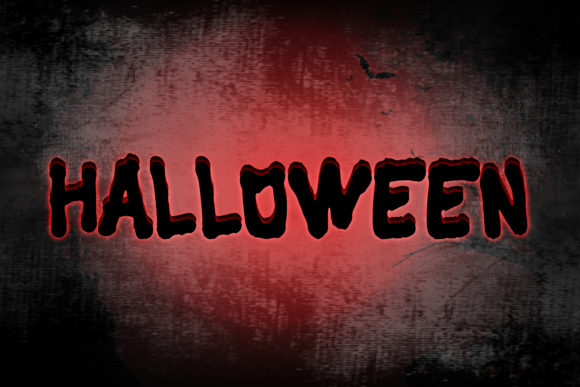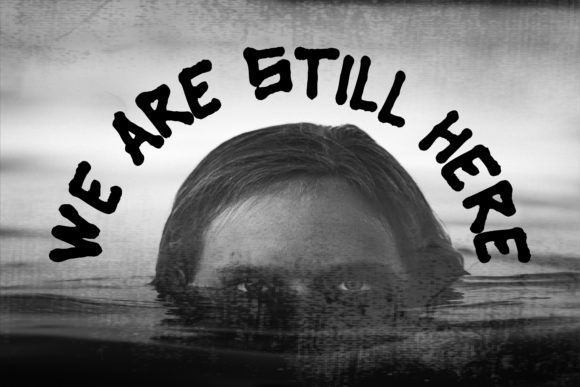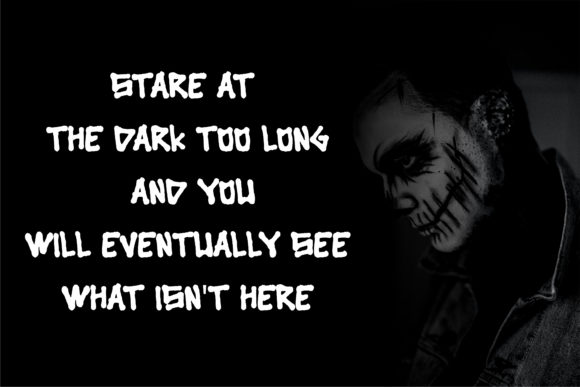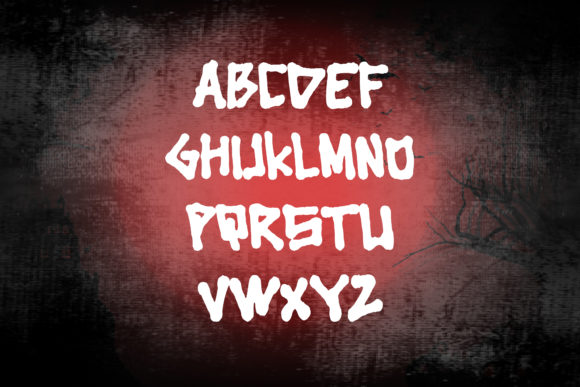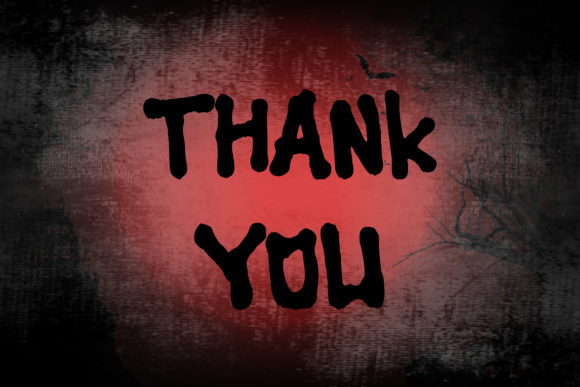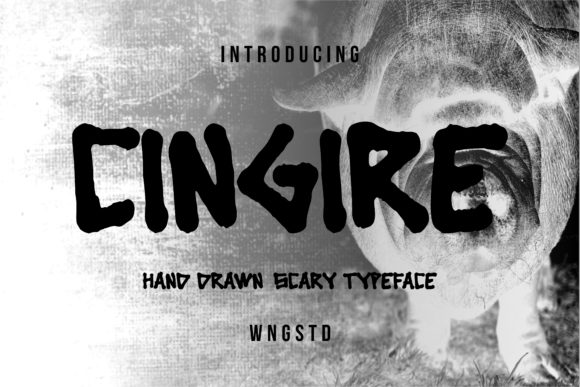
Cingire Font: The Ultimate Choice for Spooky Halloween Designs
As the spookiest time of the year approaches, designers and crafters are on the lookout for the perfect font to give their Halloween-related designs a bold and eerie touch. If you’re searching for a font that exudes power and fear, look no further than Cingire Font. This bold and scary-looking display font is specifically designed to make your Halloween designs stand out from the crowd.
What is Cingire Font?
Cingire Font is a unique and eye-catching display font that is perfect for creating bold and attention-grabbing designs. Its rugged and distressed texture gives it a haunting appearance that is sure to send chills down the spine. Whether you’re designing a poster, flyer, or social media graphic, Cingire Font is the perfect choice for adding a touch of horror and suspense to your work.
Key Features of Cingire Font
- Bold and Scary Appearance: Cingire Font boasts a bold and intimidating design that is sure to grab attention.
- Distressed Texture: The font’s distressed texture gives it a worn and rugged appearance that adds to its eerie charm.
- Perfect for Halloween Designs: Cingire Font is specifically designed with Halloween in mind, making it the perfect choice for your spooky designs.
- Easily Readable: Despite its bold and distressed appearance, Cingire Font is surprisingly easy to read, making it perfect for use in a variety of design applications.
How to Use Cingire Font in Your Designs
Cingire Font is incredibly versatile and can be used in a variety of design applications, including:
- Posters and Flyers: Use Cingire Font to create eye-catching posters and flyers for Halloween events, haunted houses, or spooky movie screenings.
- Social Media Graphics: Add a touch of horror to your social media graphics with Cingire Font, perfect for creating spooky Facebook and Twitter headers.
- Invitations and Party Decor: Use Cingire Font to create spooky invitations and party decor for your Halloween bash.
- Logos and Branding: Cingire Font can even be used to create bold and eye-catching logos and branding for Halloween-themed businesses.
Tips for Getting the Most Out of Cingire Font
To get the most out of Cingire Font, here are a few tips to keep in mind:
- Use it Sparingly: Cingire Font is bold and attention-grabbing, so use it sparingly to avoid overwhelming your design.
- Pair it with Other Fonts: Pair Cingire Font with other fonts to create a unique and visually appealing design.
- Experiment with Colors: Cingire Font looks great in a variety of colors, so don’t be afraid to experiment and find the perfect hue for your design.